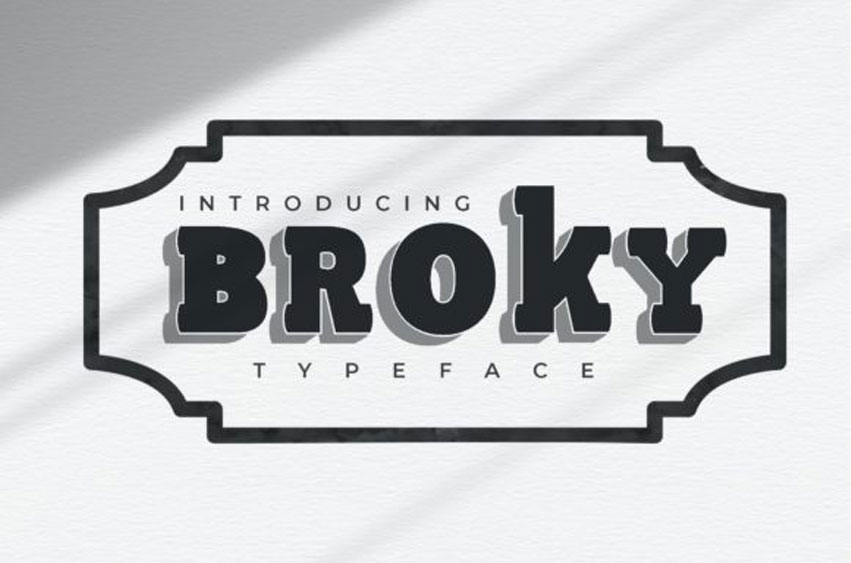
Broky Font
Broky Font is a cool, western-looking slab serif font.
No matter the topic, this font will be an incredible asset to your font library, as it has the potential to elevate any creation.